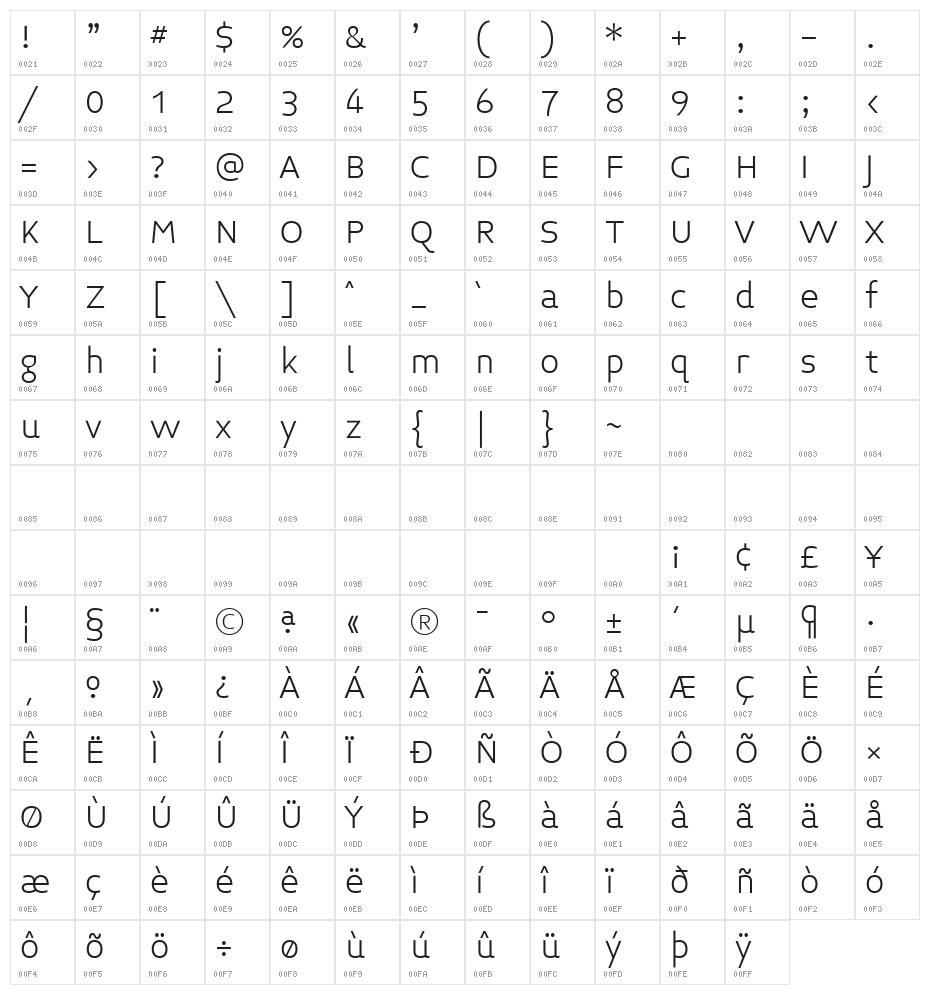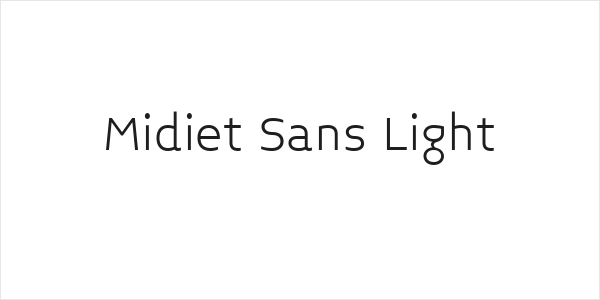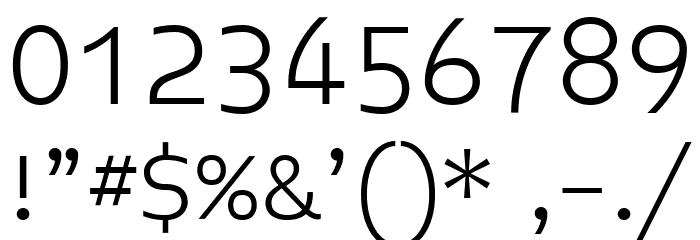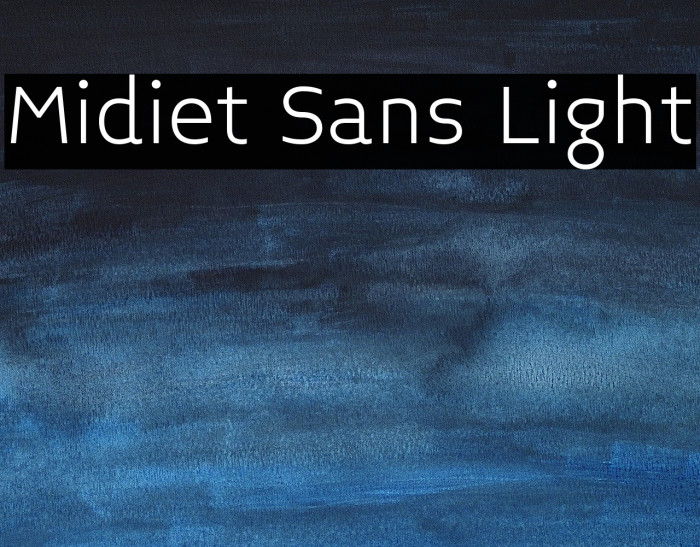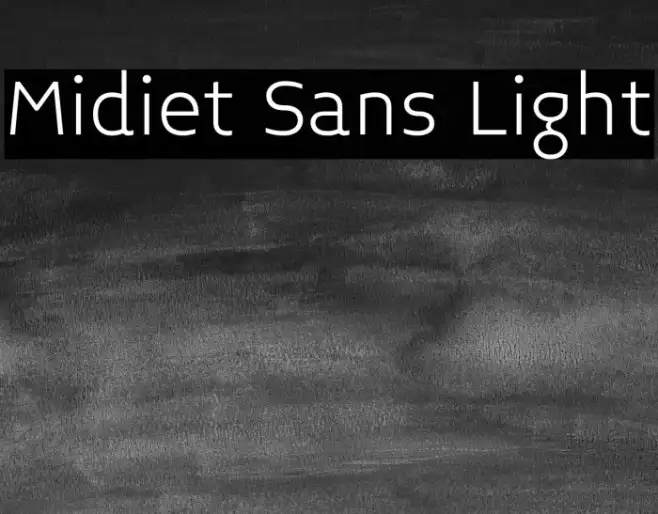
Midiet Sans Light Font
Midiet Sans Light Description
This font features a clean and modern sans-serif design with a light weight, offering a sleek and contemporary appearance. The characters are crafted with precision, showcasing a uniform stroke width that contributes to its minimalist aesthetic. The uppercase letters are slightly taller than the lowercase, providing a subtle distinction that enhances readability. The numerals are proportionate and align well with the overall style, making them suitable for various applications. Special characters are included, maintaining the font's cohesive look. The spacing between characters is balanced, ensuring clarity and legibility across different sizes.
| Proposed Projects | Ideal for digital interfaces, branding, advertising, and editorial design. |